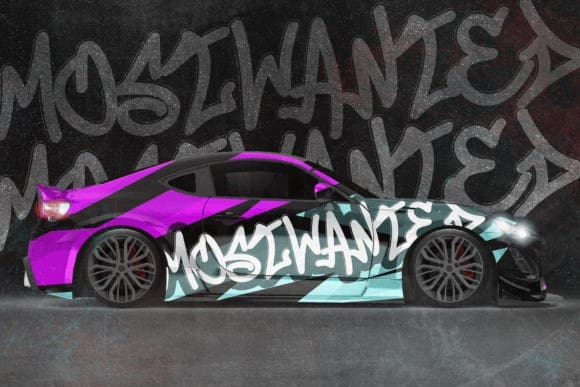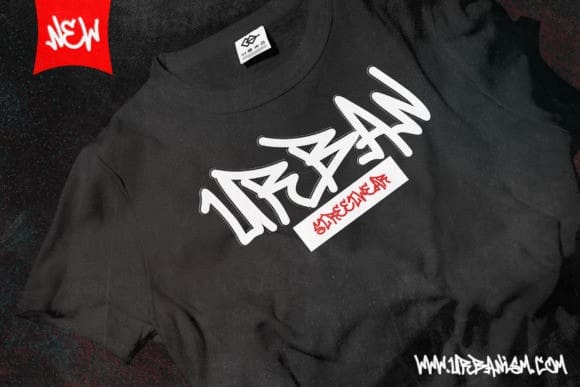
Street Of Exodus Font
Street of Exodus Font is a monoline font with a graffiti theme and a slight shadow effect to add depth and decoration to the font. It is perfect for a wide range of urban or street-themed design projects, such as streetwear design, logo design, car/motorsport advertising, and other similar designs. With its edgy and bold appearance, “Street of Exodus” brings a sense of energy and attitude to your designs.